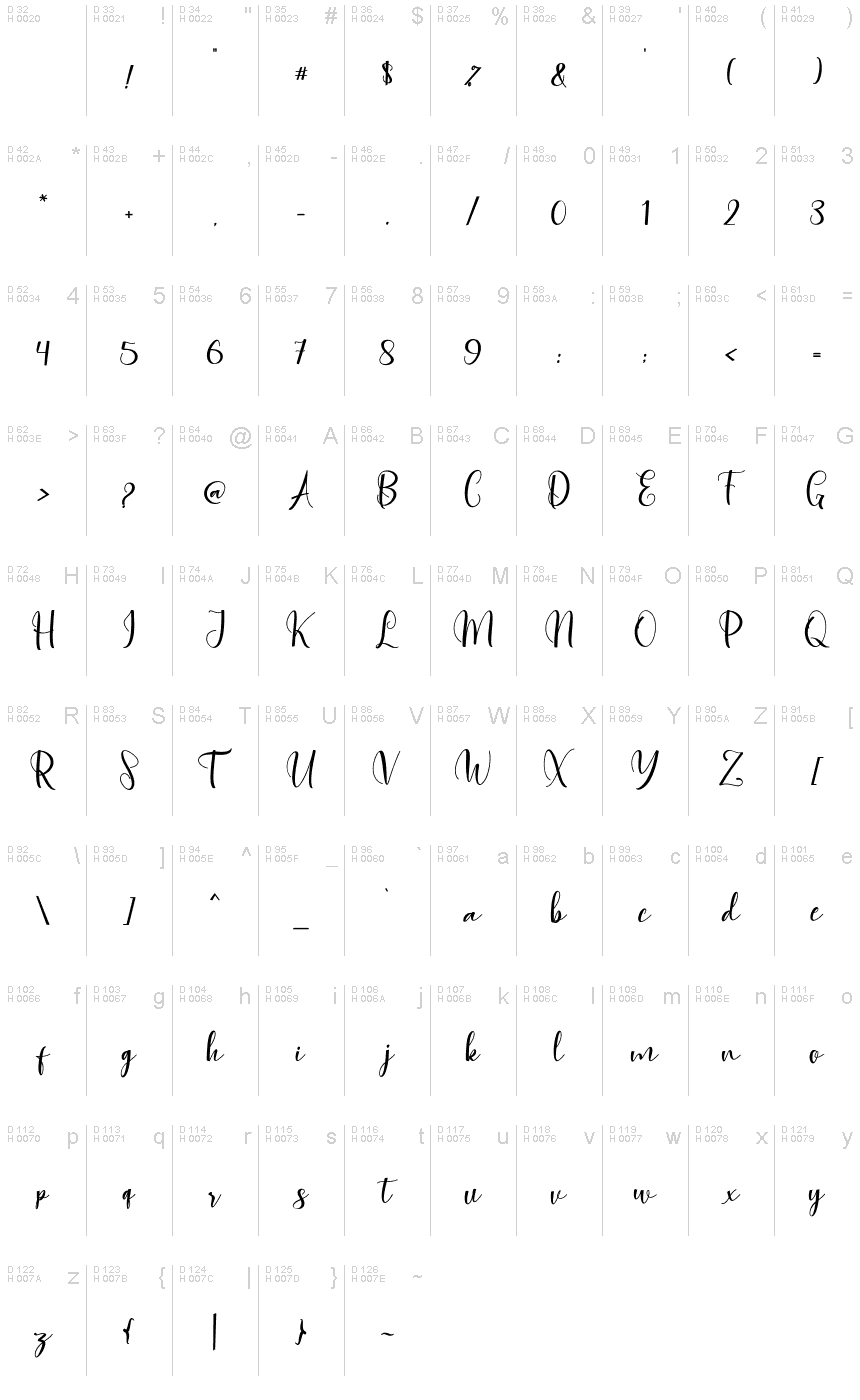
Agnesia
Agnesia, crafted by the talented designer Fajriadi, is an exquisite calligraphy font that effortlessly blends elegance with a touch of modernity. With its semi-light weight, this font exudes a delicate and refined vibe. Agnesia is perfect for creating stunning wedding invitations or adding a luxurious feel to branding projects. Its graceful curves and flowing strokes make it suitable for fashion magazines and beauty blogs as well. Let Agnesia elevate your designs with its timeless charm and make a lasting impression on any project that demands sophistication and grace.